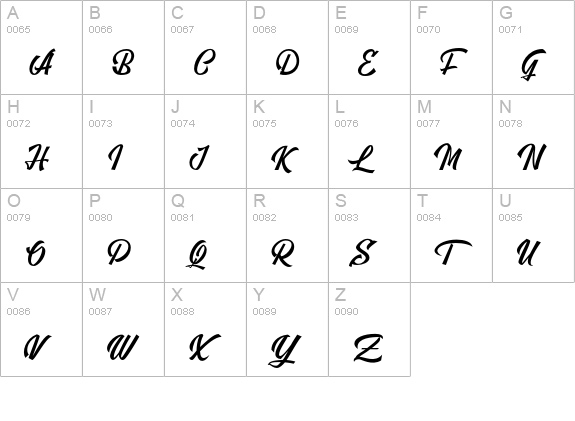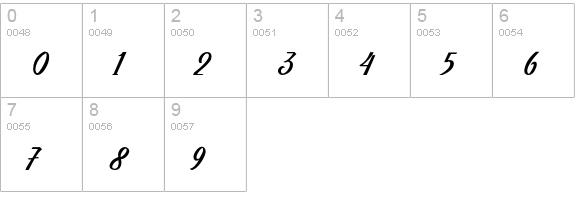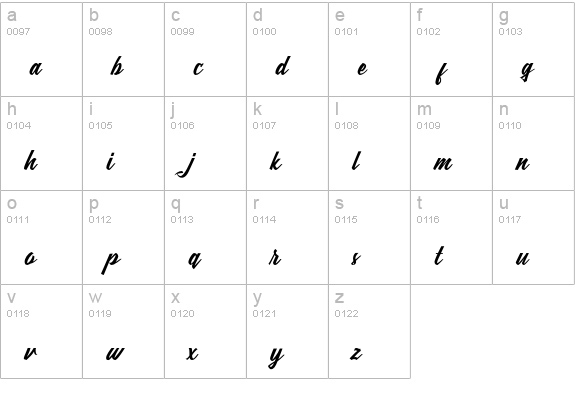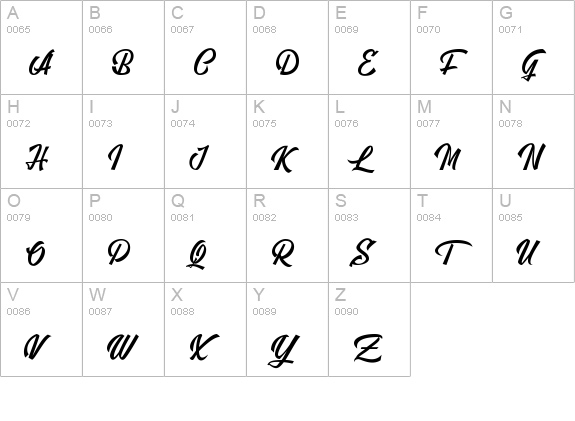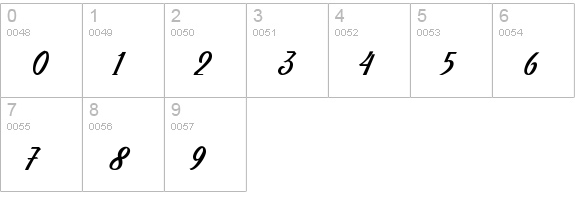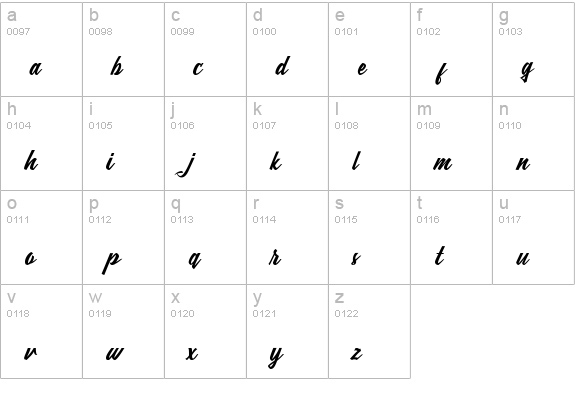
Rushland Script Baseball font Font Details
Rushland Script Baseball font is a free for personal use font in the Script > Brush category, designed by SheillaType. It has been downloaded 420 times and is available for Windows, Mac and Linux.
Introducing Rushland Script Baseball font, a dynamic and energetic typeface perfect for sports-themed designs. This font exudes a sense of movement and excitement, making it ideal for baseball-related projects such as team logos, posters, and merchandise. With its bold and stylish script style, Rushland Script Baseball font is sure to make a statement and capture attention.